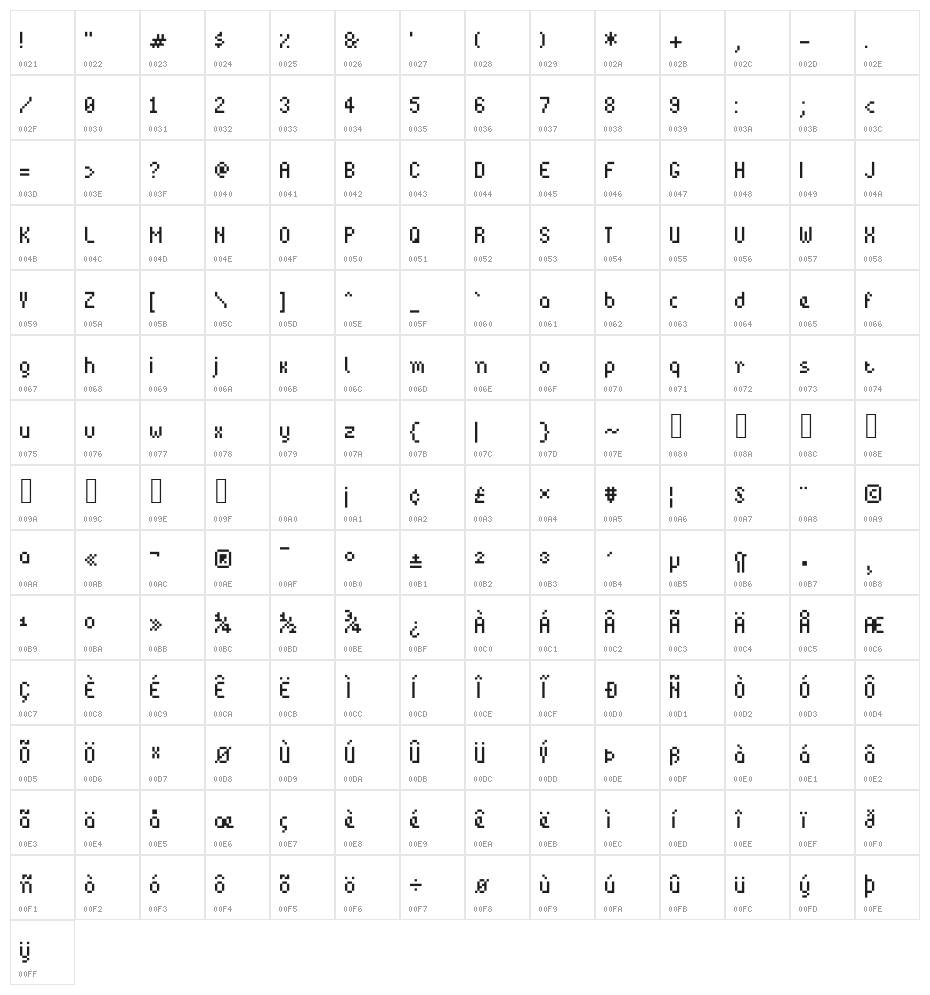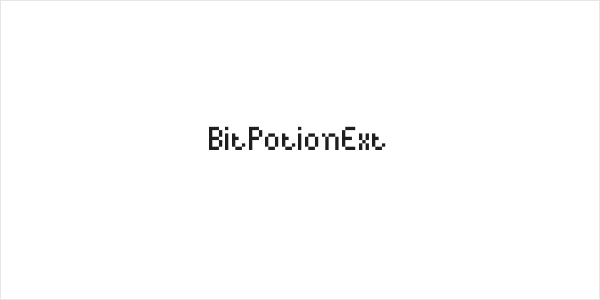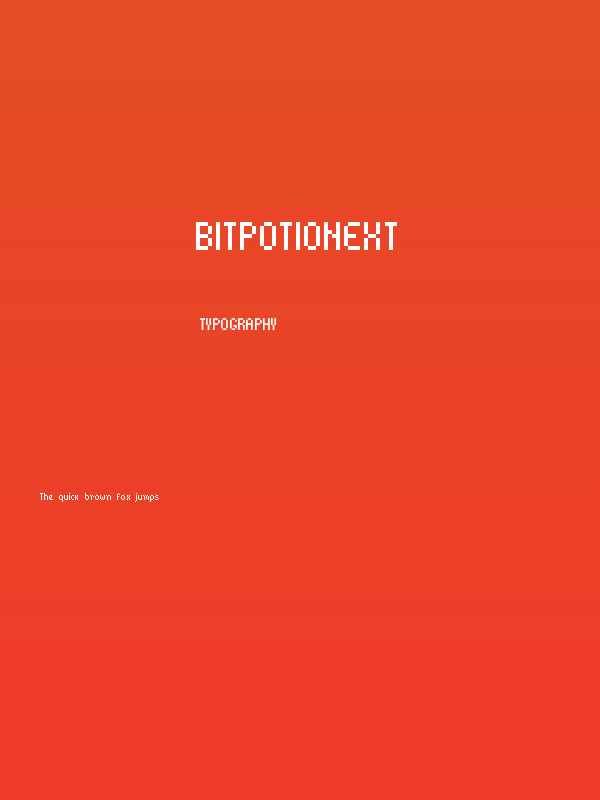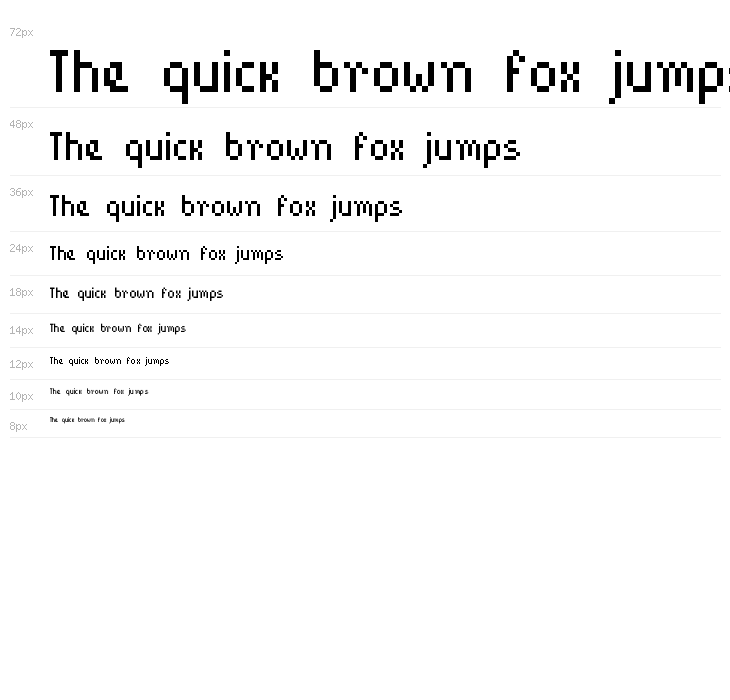
BitPotionExt Font
BitPotionExt Description
This font features a pixelated, blocky design reminiscent of classic 8-bit video games. Each character is composed of square pixels, giving it a retro digital aesthetic. The uppercase and lowercase letters maintain a consistent height, with the lowercase being slightly smaller. Numbers and special characters follow the same pixelated style, ensuring uniformity across all glyphs. The font's geometric structure and uniform pixel size make it ideal for digital and retro-themed projects.
| Overall Style | Retro |
| Use Case | Logos, Headlines, Digital Art |
| Proposed Projects | Ideal for video game design, retro-themed posters, digital art, and any project seeking a nostalgic, digital look. |